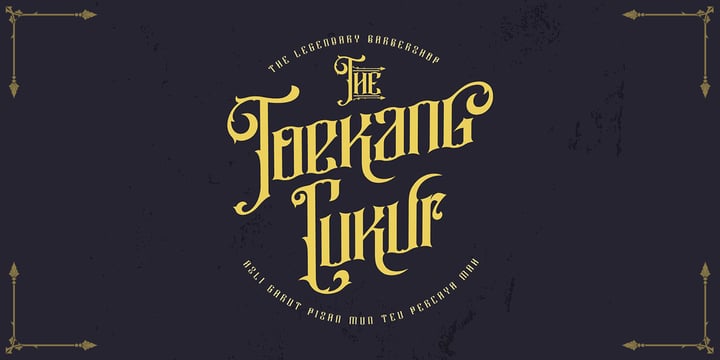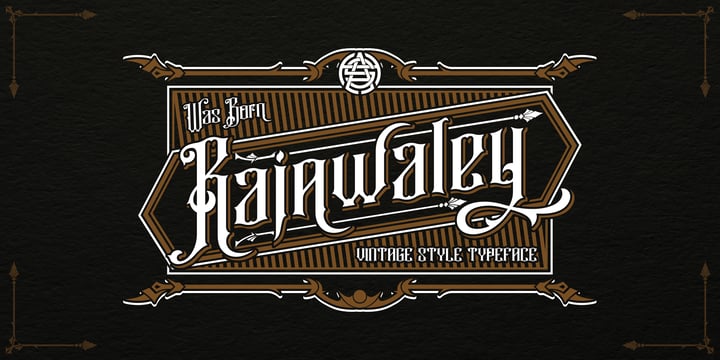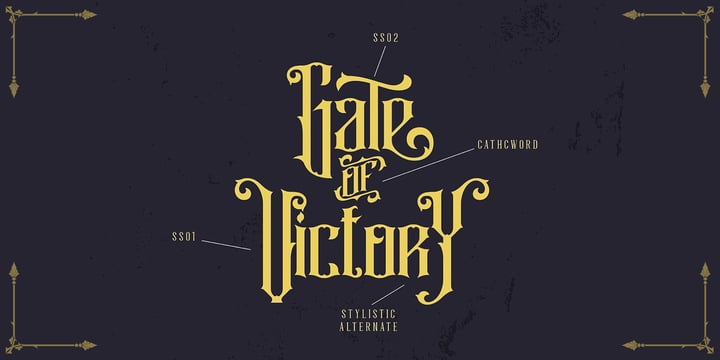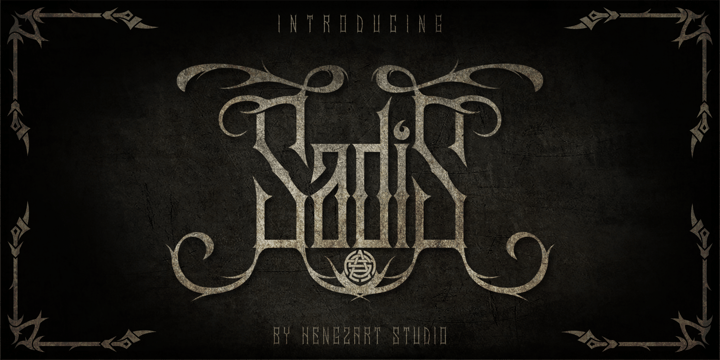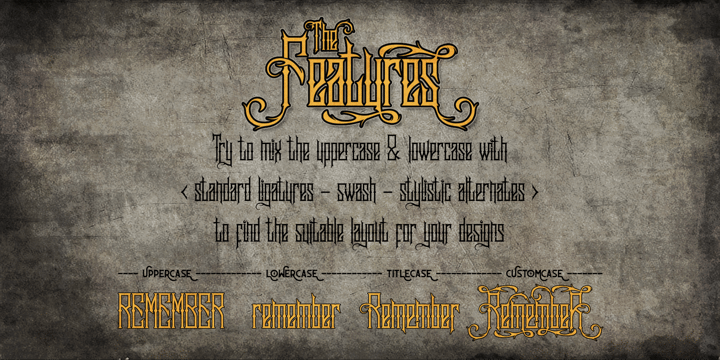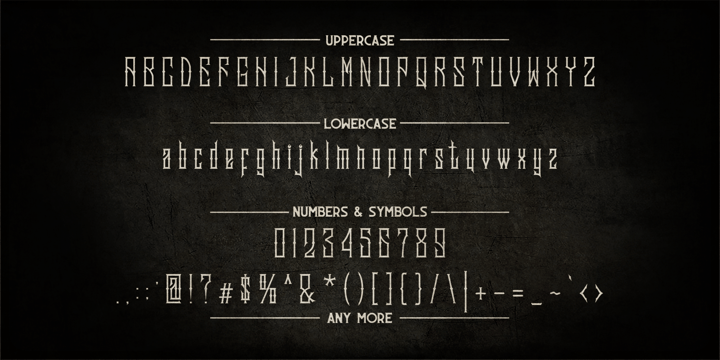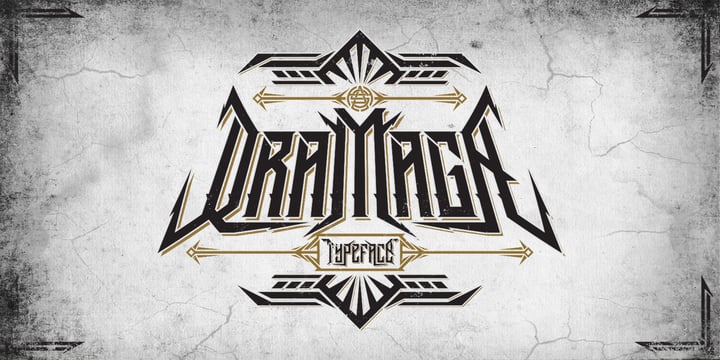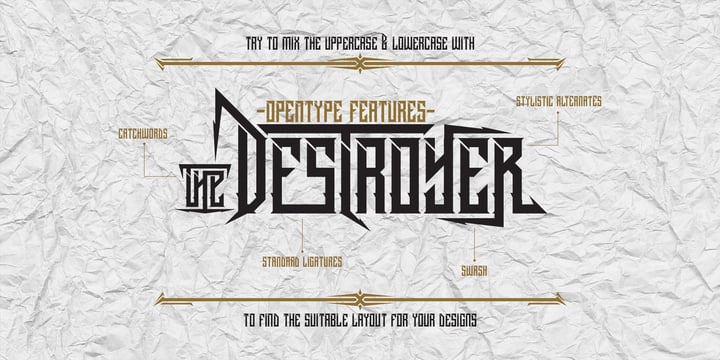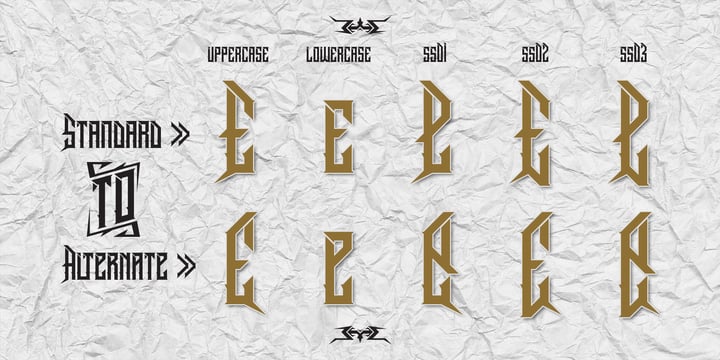
Let me introduce myself, my name is Nuryana Fajartama. I am a freelancer from Bogor, Indonesia. I am a passionate typography designer with a high dedication to creating extraordinary and innovative designs. With a deep understanding of the power of typography and an eye for detail, I bring a unique perspective to my work that is informed by my extensive experience in graphic design.
Initially I came from a background as a graphic designer, my interest in typography encouraged me to learn more about typeface design autodidactically from various articles on the internet, and finally I began to understand typography and typeface creation.
My ability to create typefaces that not only meet the functional requirements of a project, but also add a unique and memorable aesthetic to the design. I am passionate about exploring new ideas and pushing the boundaries of traditional typeface design, and my work has been recognized by clients for its creativity and impact.
Currently I have created various categories of typefaces, but I focus more on creating typefaces that specialize in the blackletter font category, because it suits my skills and style that can trigger my enthusiasm to create typefaces in that category.
With my skills, I can operate applications such as Adobe Illustrator, Adobe Photoshop, Adobe Premiere, Fontlab Studio, Cubase, and others. My hobby is drawing and designing such as fonts, logos, and vectors. On the other hand, I also love music. I made my hobby as my job. I am very happy and comfortable with my job.